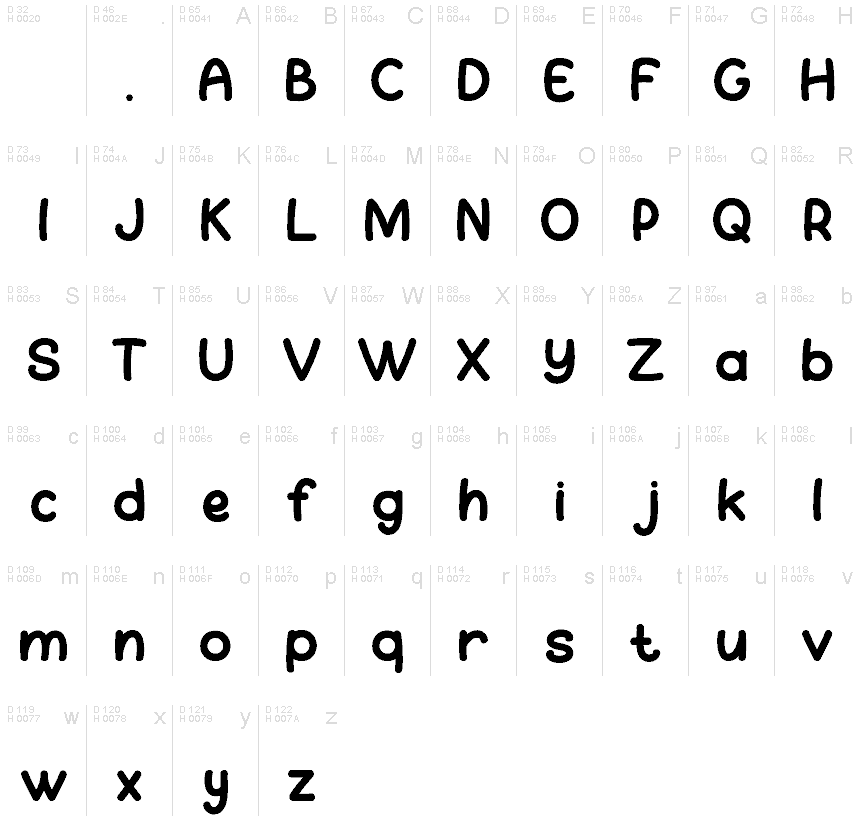
CANDY BABY Regular
Candy Baby font by Achmad Yani of Flawless and co. is a cartoon display font that captures attention and charms. Its soft, rounded, bubbly characters take on a youthful, nostalgic style that renders it approachable for any audience. Available as a free display font, use its variations in size or color to experiment with endless creative possibilities.
Use the playful font in kids’ book covers, posters, and signage as well as product packaging designs like cereal boxes and candy wrappers. All branding projects related to toys or educational material can be created using it with typography always stealing the show!